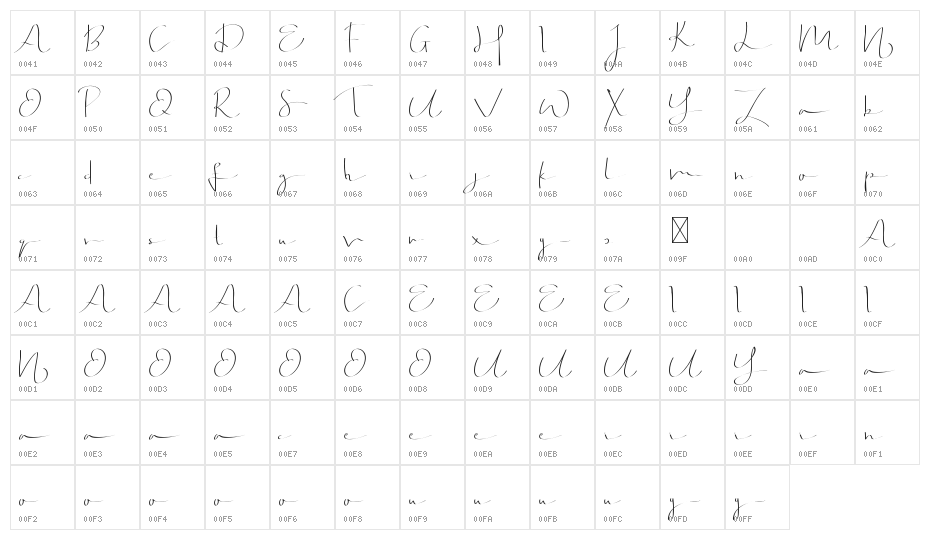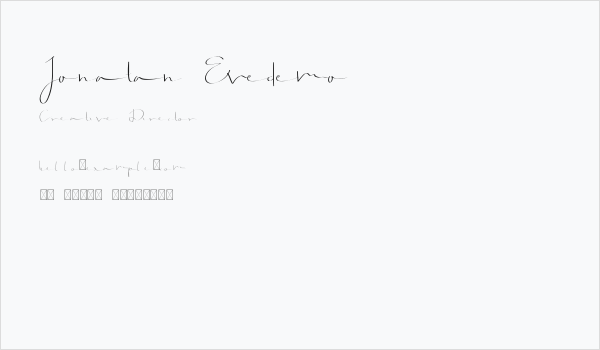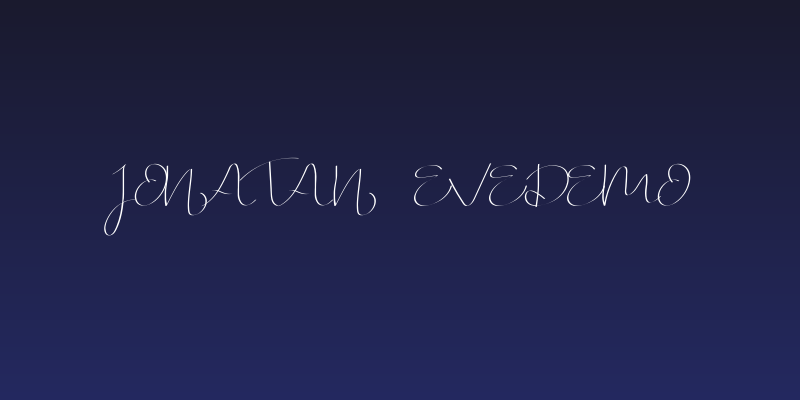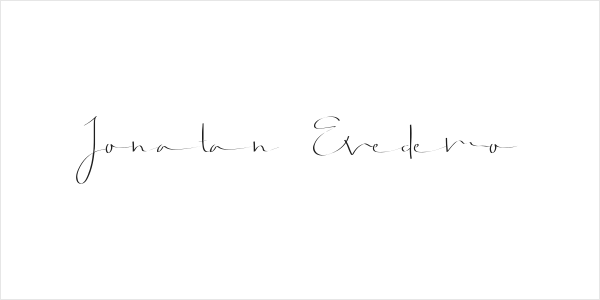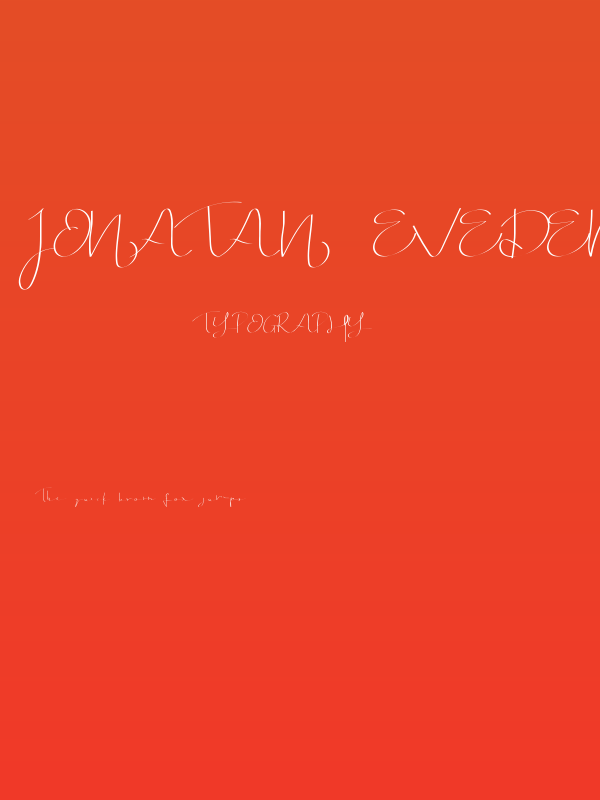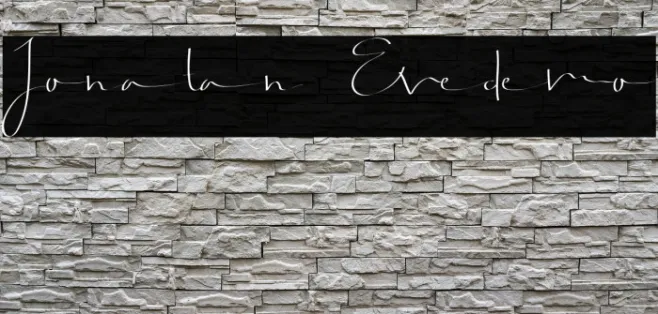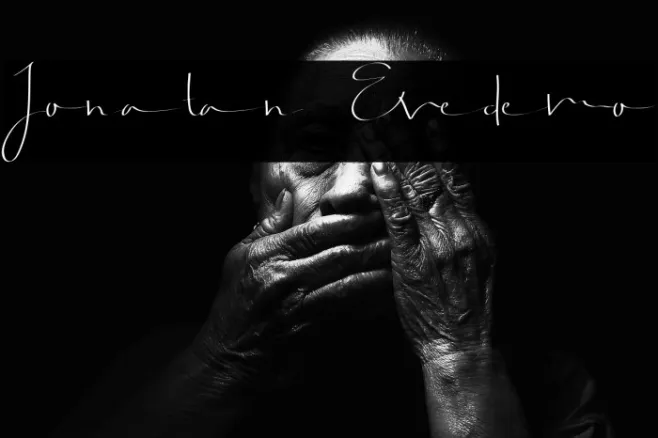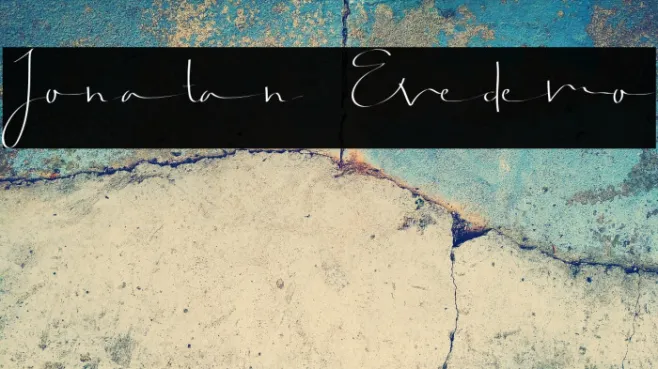
Jonatan Evedemo Font
Jonatan Evedemo Description
This font features an elegant, flowing script style with a handwritten appearance. The characters are connected with smooth, sweeping lines that give a sense of fluidity and grace. The uppercase letters are tall and slender, with distinctive loops and curves that add a touch of sophistication. The lowercase letters maintain a consistent style, with some variations in height and width that enhance the organic feel of the font. The overall look is delicate and airy, making it suitable for projects that require a personal or artistic touch.
| Overall Style | Elegant, Artistic |
| Proposed Projects | Ideal for wedding invitations, greeting cards, personal branding, and artistic projects. |